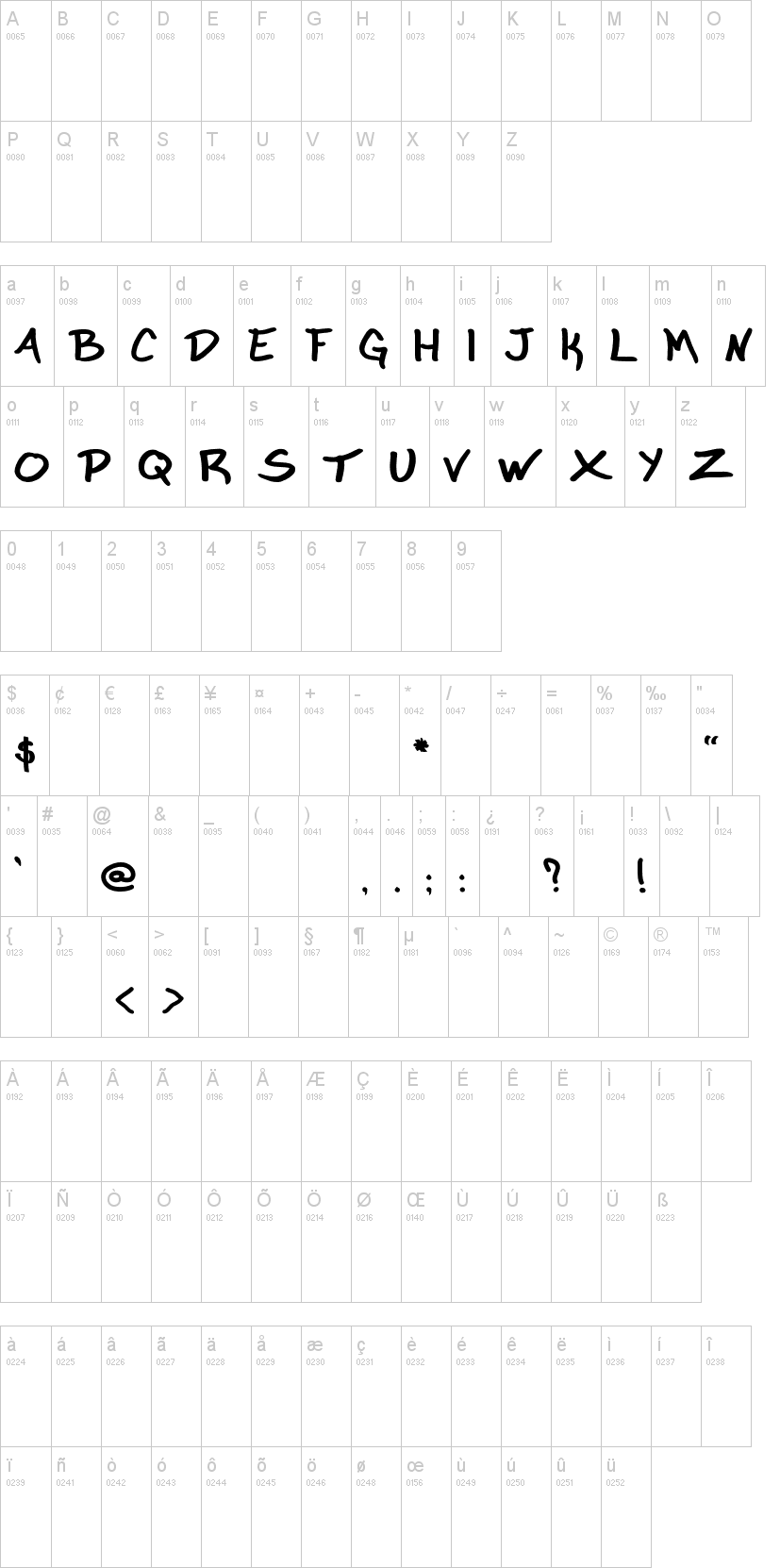
Шрифт Marker Garbage
This is a rough test at creating a font. Hastily drawn in marker on paper and then live traced in Illustrator.
It's pretty ugly, but someone may find use in it.